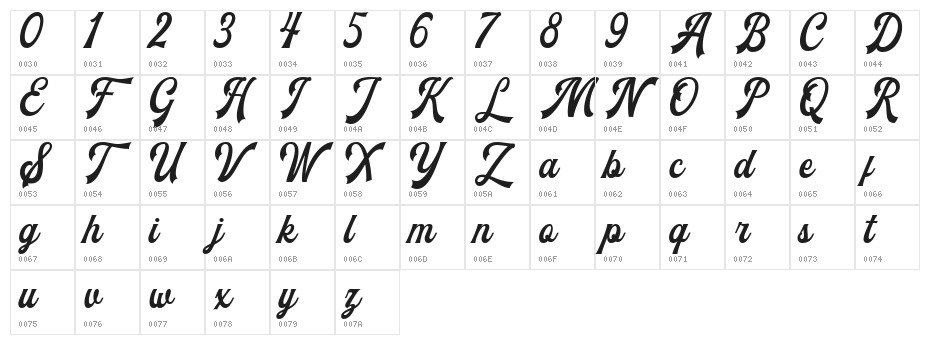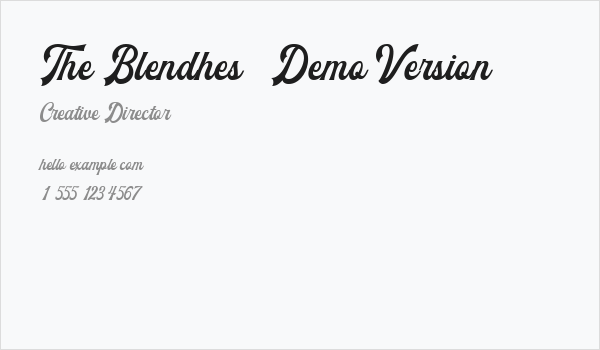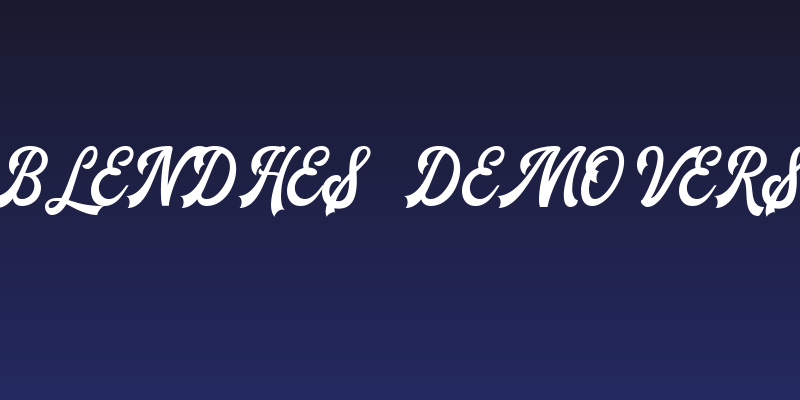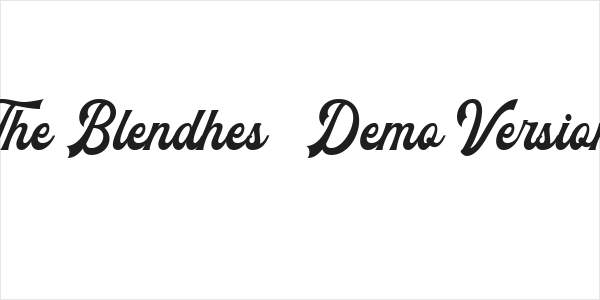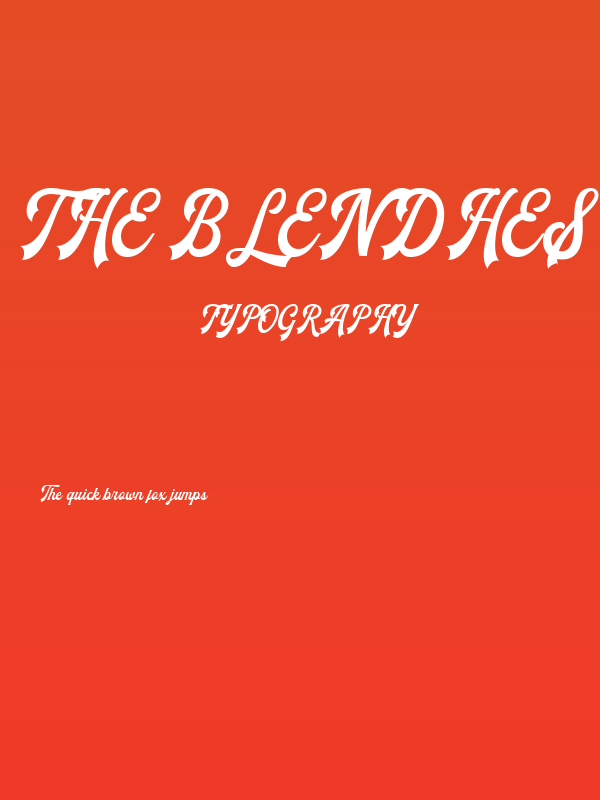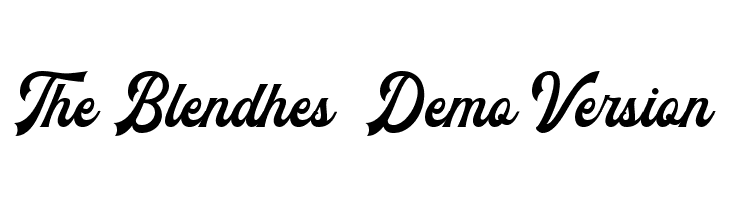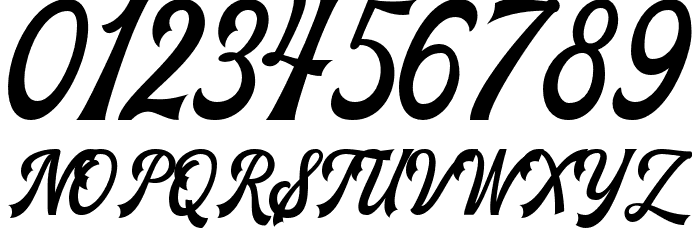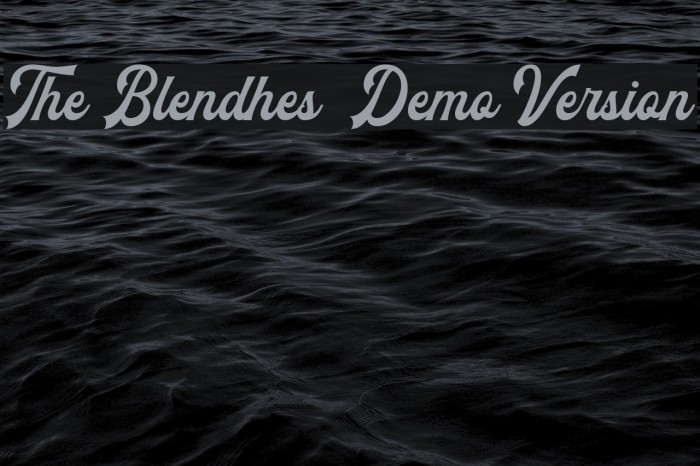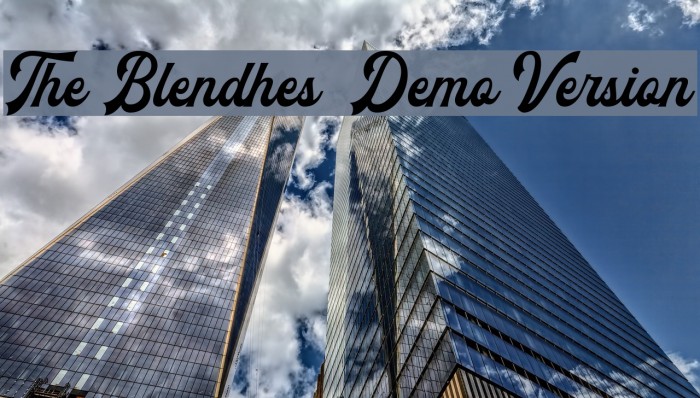
The Blendhes - Demo Version Font
The Blendhes - Demo Version Description
This font features a bold, cursive style with a strong emphasis on flowing, connected characters. The uppercase letters exhibit a dramatic flair with sweeping curves and sharp angles, while the lowercase letters maintain a consistent, elegant flow. The numerals are bold and slightly slanted, matching the overall dynamic feel of the alphabet. Special characters are integrated seamlessly, maintaining the script's cohesive look. The font's design suggests a sense of movement and sophistication, making it ideal for projects that require a touch of elegance and style.
| Use Case | Logos, Headlines, Invitations |
| Proposed Projects | Ideal for wedding invitations, branding, logo design, and elegant event posters. |